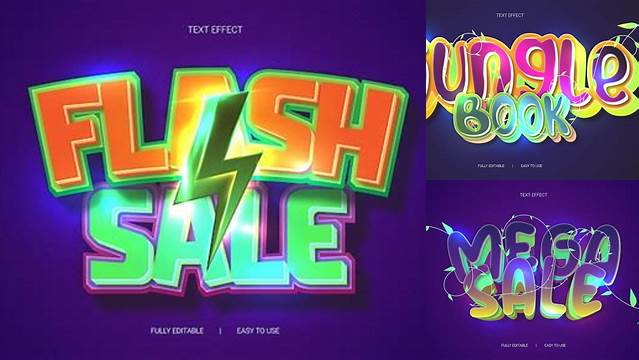
1. Understanding 3D Fonts on Freepik
Alright, first things first, let's talk about what exactly 3D fonts are and why they're such a big deal on platforms like Freepik. A 3D font, at its core, is a typeface that has been designed to appear three-dimensional. This effect is usually achieved through shading, extrusion, and perspective techniques, giving the font depth and volume that regular 2D fonts simply can't match. On Freepik, you'll find a massive variety of these fonts, ranging from playful and cartoonish styles to sleek and modern designs. The beauty of using 3D fonts is that they instantly add visual interest and can make your text pop, drawing the viewer's eye and making your message more memorable. Think about it: a simple headline can transform into an eye-catching statement piece with the right 3D font.
Why Use 3D Fonts?
Why should you even bother with 3D fonts in the first place? Well, for starters, they can significantly enhance the aesthetic appeal of your designs. In a world where visual content is king, standing out from the crowd is crucial. 3D fonts offer a unique way to do just that. They bring a sense of realism and tangibility, making your designs feel more immersive. Plus, they're incredibly versatile. Whether you're working on a poster, a website header, or a social media graphic, a well-chosen 3D font can elevate the overall look and feel of your project. So, if you're looking to add some extra flair and impact to your designs, exploring the world of 3D fonts on Freepik is definitely a smart move.
2. Exploring Font Styles Available in Freepik
Freepik is a treasure trove when it comes to font styles, especially 3D fonts. The variety is so vast that you can find something for virtually any project you have in mind. Whether you're looking for something bold and futuristic or soft and whimsical, Freepik has got you covered. One of the most popular styles you'll find is the blocky 3D font, which is perfect for headlines and titles that need to grab attention. These fonts often have sharp edges and a strong, solid presence, making them ideal for posters and banners. On the other hand, you might be drawn to the more rounded and playful 3D fonts, which are great for children's books, party invitations, or any project that needs a touch of fun. These fonts usually feature smooth curves and soft shadows, giving them a friendly and approachable vibe.
Different Font Styles
But the options don't stop there. Freepik also offers a range of 3D font styles that mimic real-world materials, such as metal, wood, and neon. These fonts can add a level of realism and texture to your designs that is hard to achieve with regular fonts. Imagine using a metallic 3D font for a tech-related project or a wooden 3D font for an eco-friendly campaign. The possibilities are endless! And let's not forget about the abstract and decorative 3D fonts, which are perfect for adding a unique and artistic touch to your work. These fonts often feature intricate designs and unconventional shapes, making them stand out from the crowd. So, no matter what style you're after, Freepik is sure to have a 3D font that fits the bill.
4. Understanding Freepik Licenses for Fonts
Before you get too carried away downloading every cool 3D font you see on Freepik, it's super important to understand the different licenses that apply to these fonts. Freepik offers a few different types of licenses, and knowing the difference between them can save you from some serious headaches down the road. The most common license you'll encounter is the Freepik Free License. This license allows you to use the fonts for both personal and commercial projects, but there's usually a catch. In most cases, you'll need to attribute the font's author by including a credit line in your design or project. This is usually as simple as adding a small note like "Font by [Author Name] via Freepik" somewhere in your work.
Freepik License Details
However, if you don't want to deal with attribution, you can opt for the Freepik Premium License. This license is available to Freepik Premium subscribers and allows you to use the 3D fonts without having to give credit to the author. It also gives you access to a wider range of fonts and other resources. It's worth noting that even with a Premium License, there may still be some restrictions on how you can use the fonts. For example, you may not be allowed to redistribute the fonts or use them in a way that infringes on the author's rights. So, always take a few minutes to read the license terms carefully before using a font in your project. Trust me, it's better to be safe than sorry!
5. Integrating 3D Fonts into Design Software
Okay, so you've found the perfect 3D font on Freepik and downloaded it. Now what? The next step is to integrate that font into your favorite design software. Whether you're using Adobe Photoshop, Illustrator, or another program, the process is usually pretty straightforward. First, you'll need to install the font on your computer. This usually involves double-clicking the font file (which will typically be in .otf or .ttf format) and then clicking the "Install" button. Once the font is installed, it should be available in your design software. Simply open your program, create a text layer, and then select the 3D font from the font menu. In some cases, you may need to restart your design software for the font to appear in the menu.
Using 3D Fonts in Design Software
Once you've selected the 3D font, you can start playing around with its settings to customize the look and feel. Most design programs allow you to adjust the font size, color, and spacing, as well as add effects like shadows and glows. Keep in mind that 3D fonts can be more resource-intensive than regular fonts, so you may need to adjust your program's settings to ensure smooth performance. And don't be afraid to experiment! Try different combinations of fonts, colors, and effects to create a unique and eye-catching design. With a little bit of practice, you'll be a 3D font integration pro in no time!
6. Optimizing 3D Fonts for Web Use
Using 3D fonts on the web can add a lot of visual appeal to your website, but it's important to optimize them properly to ensure a good user experience. Large font files can slow down your website's loading speed, which can frustrate visitors and hurt your search engine rankings. So, here are a few tips to help you optimize your 3D fonts for web use. First, choose your fonts wisely. Opt for fonts that are specifically designed for web use, as these are usually optimized for smaller file sizes. You can also try using font formats like WOFF and WOFF2, which are designed to compress font data without sacrificing quality. Another important step is to use font subsets. This involves only including the characters and glyphs that you actually need in your design. This can significantly reduce the file size of your font.
Best Practices for Web Fonts
Finally, consider using a content delivery network (CDN) to host your 3D fonts. A CDN can help distribute your fonts to users around the world, ensuring that they load quickly no matter where your visitors are located. By following these tips, you can use 3D fonts on your website without sacrificing performance or user experience. Just remember to test your website's loading speed after adding the fonts to make sure everything is running smoothly. Happy optimizing!
7. Best Practices for Using 3D Fonts in Logos
When it comes to logo design, 3D fonts can be a fantastic way to make your brand stand out. However, there are some best practices you should follow to ensure that your logo looks professional and effective. First and foremost, keep it simple. A logo should be easily recognizable and memorable, so avoid using overly complex or intricate 3D fonts. Opt for fonts that are clean, legible, and easy to read, even at small sizes. Another important consideration is scalability. Your logo should look good whether it's displayed on a business card or a billboard, so make sure the 3D font you choose scales well without losing its shape or clarity.
Using 3D Fonts in Logos Effectively
Also, think about the overall message and feel of your brand. The 3D font you choose should reflect your brand's personality and values. For example, if you're a tech company, you might want to use a modern and futuristic 3D font. If you're a more traditional business, you might opt for a classic and elegant 3D font. And finally, don't be afraid to experiment with different colors, effects, and treatments to make your logo truly unique. Just remember to keep it consistent with your brand's overall visual identity. With a little bit of creativity and attention to detail, you can create a logo that is both visually stunning and highly effective.
8. Creating 3D Text Effects in Photoshop with Freepik Fonts
Photoshop is a powerhouse when it comes to creating stunning 3D text effects, and combining it with Freepik fonts can take your designs to the next level. Here’s how you can achieve some cool effects. Start by opening Photoshop and creating a new document. Type out your text using a Freepik 3D font. Go to the 3D menu and choose “New 3D Extrusion from Selected Layer.” This will turn your text layer into a 3D object. Adjust the extrusion depth to your liking. Experiment with different settings to get the desired look. You can change the bevel, texture, and lighting to make your text really pop.
Advanced Photoshop Techniques
To add more depth, consider adding shadows and reflections. Adjust the shadow settings in the Properties panel to create realistic shadows. You can also add a reflection by duplicating the text layer, flipping it vertically, and adjusting the opacity. Remember, the key is to play around with different settings until you achieve the desired effect. Using 3D text effects can really enhance your designs and make them stand out. So, grab a Freepik font and start experimenting in Photoshop!
9. Using 3D Fonts in Social Media Graphics
3D fonts can be a game-changer for your social media graphics. They grab attention and make your posts stand out in a crowded feed. When using 3D fonts on social media, consider the platform you're posting on. Instagram might benefit from bold, eye-catching fonts, while LinkedIn might require something more professional. Always make sure the font is legible on smaller screens. Test your graphics on different devices to ensure readability. Consider the color scheme. Choose colors that complement the font and your brand. High contrast can make your text pop even more.
Social Media Strategies with 3D Fonts
Use animation sparingly. A little movement can draw the eye, but too much can be distracting. Create templates for consistency. This helps maintain a cohesive brand image. Remember, the goal is to capture attention quickly and convey your message effectively. 3D fonts can help you do just that, making your social media presence more engaging and memorable.
10. Making Presentations More Engaging with 3D Fonts
3D fonts can transform a boring presentation into an engaging visual experience. Use them to highlight key points and make your slides more memorable. When choosing a 3D font for your presentation, consider the overall tone and theme. A tech-focused presentation might benefit from a futuristic font, while a creative presentation could use something more playful. Make sure the font is legible from the back of the room. Test your presentation in the actual venue to ensure readability.
Presentation Tips
Use 3D fonts sparingly. Too much can be overwhelming. Focus on headings and key phrases. Incorporate animations to reveal text in a dynamic way. This keeps the audience engaged. Choose colors that complement your background and overall design. Maintain consistency throughout your presentation. Using 3D fonts strategically can make your message more impactful and keep your audience interested. So, go ahead and give your presentations a 3D makeover!
11. Creating Eye-Catching Posters with Freepik 3D Fonts
Posters are all about grabbing attention, and Freepik 3D fonts can help you do just that. Choose fonts that are bold and visually striking. Consider the poster's theme and target audience. A music festival poster will need a different font than a movie poster. Make sure the font is legible from a distance. Use large sizes and high contrast colors. Incorporate visual elements that complement the font. Images and graphics can enhance the overall design.
Poster Design Tips
Don't overcrowd the poster with too much text. Keep it concise and impactful. Use hierarchy to guide the viewer's eye. Highlight the most important information. Experiment with different layouts and arrangements. Find what works best for your design. Freepik 3D fonts can transform your posters into eye-catching masterpieces. So, get creative and make your posters stand out!
12. Designing Stunning Book Covers with 3D Fonts
Book covers need to grab attention on a crowded shelf, and 3D fonts from Freepik can help. Choose fonts that reflect the genre and tone of the book. A fantasy novel might benefit from an ornate font, while a thriller could use something more stark. Make sure the font is legible, even in thumbnail view. Online shoppers need to be able to read the title quickly. Consider the color scheme and overall design. The font should complement the cover art and other elements.
Book Cover Design Tips
Experiment with different layouts and arrangements. Find what makes the title stand out. Don't overcrowd the cover with too much text. Keep it clean and impactful. Use shadows and effects to add depth and dimension. Freepik 3D fonts can transform your book covers into captivating designs. So, let your creativity flow and make your book covers irresistible!
13. Using 3D Fonts in Mobile App Design
In mobile app design, 3D fonts can enhance the user interface and create a more engaging experience. Choose fonts that are legible on small screens. Prioritize readability and clarity. Consider the overall design and user experience. The font should complement the app's aesthetics. Use 3D fonts sparingly to highlight key elements. Avoid overwhelming the user with too much visual clutter.
Mobile App Design Strategies
Test the font on different devices and screen sizes. Ensure it looks good across all platforms. Incorporate animations to add a dynamic touch. Keep the animations subtle and purposeful. Use colors that complement the app's color scheme. Maintain consistency throughout the app's design. 3D fonts can add a unique touch to your mobile app, making it more visually appealing and user-friendly.
14. Creating 3D Typography Animations
3D typography animations can add a dynamic and engaging element to your projects. Start by creating your 3D text in a design software like Adobe Illustrator or Cinema 4D. Import your text into an animation software like Adobe After Effects. Animate the text using various effects and transitions. Add lighting and shadows to enhance the 3D effect.
Animation Techniques
Experiment with different animation styles and techniques. Find what works best for your project. Use keyframes to control the timing and movement of the text. Add sound effects to create a more immersive experience. Preview your animation to ensure it looks smooth and professional. 3D typography animations can bring your text to life, making it more captivating and memorable.
15. Designing Interactive 3D Font Experiences
Interactive 3D font experiences can provide users with a unique and engaging way to interact with text. Use 3D fonts to create interactive elements on your website or app. Allow users to manipulate the text in real-time. Incorporate animations and effects that respond to user input. Design the experience to be intuitive and user-friendly.
Interactive Design Tips
Test the experience on different devices and browsers. Ensure it works seamlessly across all platforms. Use 3D fonts that are legible and visually appealing. Consider the overall design and user experience. Gather feedback from users and iterate on your design. Interactive 3D font experiences can create a memorable and engaging user experience, setting your project apart from the competition.
16. Exploring 3D Font Trends in 2024
Staying up-to-date with 3D font trends can help you create designs that are modern and relevant. In 2024, we're seeing a rise in bold and geometric 3D fonts. These fonts are perfect for headlines and titles that need to grab attention. We're also seeing a trend towards minimalist 3D fonts. These fonts are clean, simple, and elegant, making them ideal for a wide range of projects. Another trend is the use of vibrant colors and gradients in 3D fonts. These colors add a pop of personality to your designs. Experiment with different styles and techniques to find what works best for your projects.
17. Advanced Techniques for 3D Font Customization
Customizing 3D fonts can help you create unique and personalized designs. Use design software like Adobe Illustrator or Photoshop to customize the font's appearance. Adjust the font's size, color, and spacing. Add effects like shadows, glows, and textures. Experiment with different styles and techniques to create your own unique look. You can also use 3D modeling software to create custom 3D fonts from scratch. This gives you complete control over the font's design and appearance. Remember to save your customized fonts in a format that can be easily used in your projects.
18. The Impact of 3D Fonts on Visual Hierarchy
3D fonts can significantly impact the visual hierarchy of your designs. Use 3D fonts to highlight the most important information. Make the most important text larger and more prominent. Use different colors and effects to differentiate between different levels of information. Create a clear visual hierarchy to guide the viewer's eye. Ensure that the most important information is easily visible and understandable. A well-designed visual hierarchy can make your designs more effective and engaging.
19. Using 3D Fonts to Enhance Brand Identity
3D fonts can play a key role in enhancing your brand identity. Choose fonts that reflect your brand's personality and values. Use 3D fonts consistently across all of your marketing materials. This will help create a cohesive and recognizable brand image. Consider the color, style, and overall appearance of the font. Ensure that it aligns with your brand's overall visual identity. Use 3D fonts to create a memorable and impactful brand experience.
20. Tips for Choosing the Right 3D Font for Your Project
Choosing the right 3D font is crucial for the success of your project. Consider the project's theme and target audience. Choose fonts that are appropriate for the project's purpose. Make sure the font is legible and easy to read. Test the font on different devices and screen sizes. Consider the color and style of the font. Ensure that it complements the overall design. Don't be afraid to experiment with different fonts until you find the perfect one.
21. 3D Fonts vs. Regular Fonts: Which to Choose?
When deciding between 3D fonts and regular fonts, consider the project's goals and requirements. 3D fonts can add visual interest and impact, but they can also be more resource-intensive. Regular fonts are more versatile and easier to use, but they may not be as visually appealing. Choose the font that best meets the project's needs. If you need to grab attention and make a statement, 3D fonts may be the better choice. If you need something simple and easy to read, regular fonts may be more appropriate.
22. Free vs. Premium 3D Fonts on Freepik
Freepik offers both free and premium 3D fonts. Free fonts are a great option for personal projects and small-scale commercial projects. Premium fonts offer more features, higher quality, and commercial use licenses. Consider your budget and project requirements when choosing between free and premium fonts. If you need high-quality fonts for commercial use, premium fonts may be the better choice. If you're on a tight budget, free fonts can be a great alternative.
23. Avoiding Common Mistakes When Using 3D Fonts
Avoid common mistakes when using 3D fonts to ensure your designs look professional and effective. Don't use too many different 3D fonts in the same project. This can create a cluttered and confusing design. Make sure the font is legible and easy to read. Avoid using fonts that are too small or too complex. Consider the color and style of the font. Ensure that it complements the overall design. Test your designs on different devices and screen sizes to ensure they look good across all platforms.
24. 3D Fonts and Accessibility: Best Practices
When using 3D fonts, it's important to consider accessibility. Make sure the font is legible for people with visual impairments. Use high contrast colors to make the text easier to read. Avoid using fonts that are too small or too complex. Provide alternative text for images and graphics that contain 3D fonts. Test your designs with accessibility tools to ensure they are accessible to everyone.
25. The Future of 3D Fonts in Graphic Design
The future of 3D fonts in graphic design is bright. As technology continues to evolve, we can expect to see even more innovative and creative uses of 3D fonts. We may also see the rise of AI-powered font design tools that can automatically generate custom 3D fonts based on user input. The possibilities are endless, and it's exciting to imagine what the future holds for 3D fonts.
26. Integrating 3D Fonts with Virtual Reality (VR) and Augmented Reality (AR)
Integrating 3D fonts with VR and AR technologies can create immersive and engaging experiences. Use 3D fonts to create interactive elements in VR and AR environments. Allow users to manipulate the text in real-time. Incorporate animations and effects that respond to user input. Design the experience to be intuitive and user-friendly. Test the experience on different devices and platforms. Gather feedback from users and iterate on your design.
27. Maximizing the Impact of 3D Fonts in Advertising
3D fonts can significantly enhance the impact of your advertising campaigns. Use 3D fonts to grab attention and make your ads more memorable. Choose fonts that are appropriate for your target audience and brand. Consider the color, style, and overall appearance of the font. Use 3D fonts to highlight key messages and calls to action. Test your ads with different 3D fonts to see which ones perform best.
28. Creating a Cohesive Design with 3D Fonts and Other Elements
Creating a cohesive design with 3D fonts and other elements requires careful planning and attention to detail. Choose fonts that complement the other elements in your design. Use a consistent color palette throughout your design. Create a clear visual hierarchy to guide the viewer's eye. Ensure that all elements work together to create a unified and harmonious design. Don't be afraid to experiment with different layouts and arrangements until you find the perfect balance.
29. Monetizing Your 3D Font Designs
If you're a skilled 3D font designer, you can monetize your designs by selling them online. Create high-quality 3D fonts that are in demand. Sell your fonts on marketplaces like Creative Market and Envato Elements. Offer different licensing options to cater to a wide range of customers. Promote your fonts on social media and other online platforms. Build a strong portfolio to showcase your skills and attract potential customers. Monetizing your 3D font designs can be a great way to earn passive income and build a successful career as a designer.
30. Resources for Learning More About 3D Fonts
There are many resources available for learning more about 3D fonts. Online tutorials and courses can teach you the basics of 3D font design. Design blogs and forums can provide you with inspiration and advice. Books on typography and graphic design can offer a deeper understanding of the subject. Experiment with different software and techniques to develop your skills. The more you learn, the better you'll become at using 3D fonts in your designs. Some resources include sites like Skillshare, Udemy, and Adobe's own tutorials.